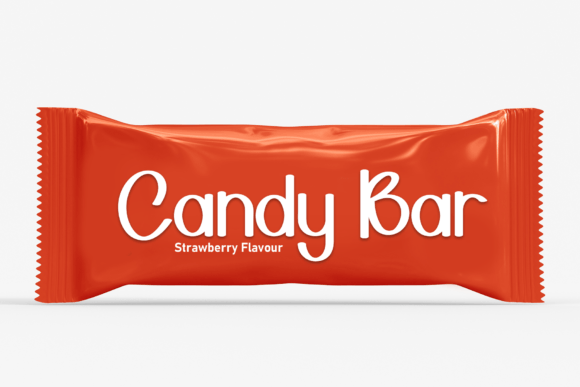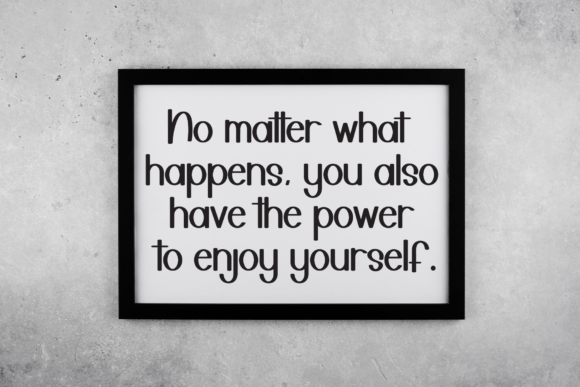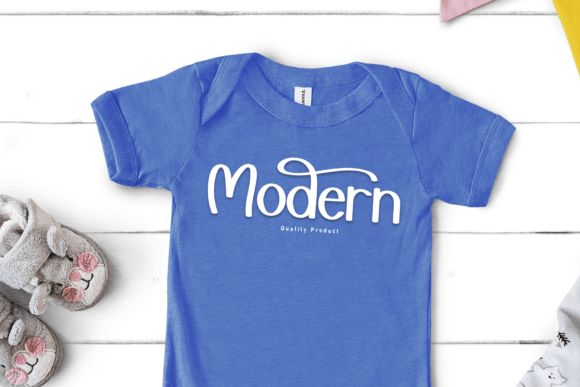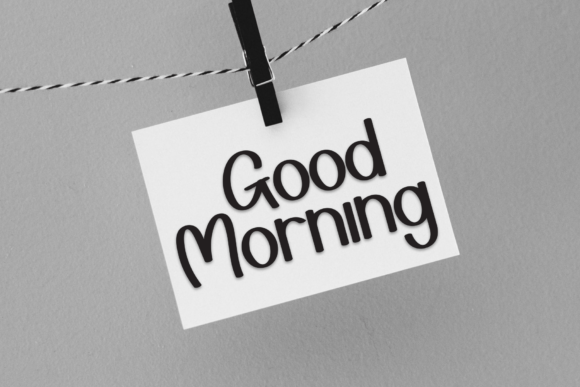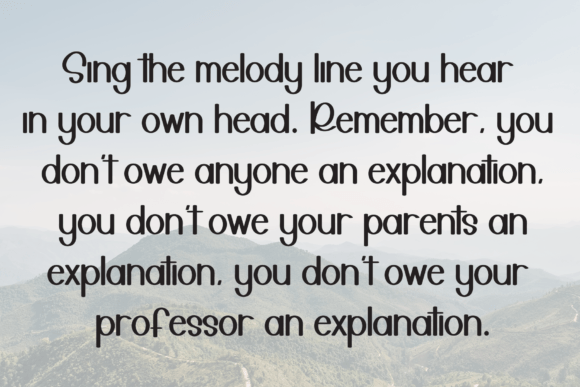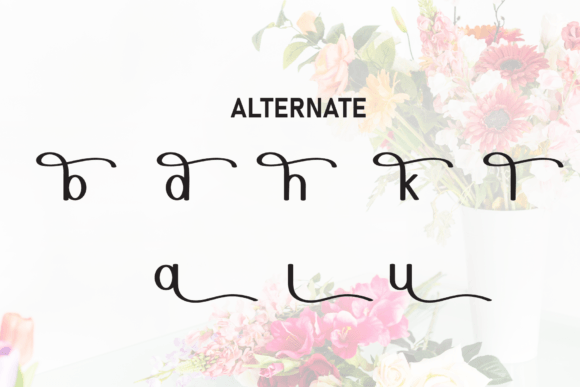
Introducing Bucket Font: The Sweetest Addition to Your Design Projects
Are you tired of using the same old fonts in your design projects? Do you want to add a touch of whimsy and fun to your creations? Look no further than Bucket Font, a charmingly sweet and friendly typeface that’s been personally handcrafted to bring visual joy to your designs. In this article, we’ll dive into the world of Bucket Font and explore its features, benefits, and uses.
A Playful and Inviting Typeface
Bucket Font is a handwritten display font that’s designed to exude a playful vibe. Its unique and irregular shape makes it perfect for adding a personal touch to your designs. Whether you’re creating wedding invitations, greeting cards, or social media graphics, Bucket Font is sure to make your text stand out. The font’s sweet and friendly demeanor makes it ideal for designs that require a touch of warmth and personality.
Features of Bucket Font
- Handcrafted with love: Bucket Font is a carefully crafted typeface that’s been designed with attention to detail. Each letter has been personally hand-drawn to ensure a unique and authentic look.
- Playful and whimsical: The font’s irregular shape and curved lines give it a playful and whimsical feel that’s perfect for designs that require a touch of fun.
- Highly legible: Despite its playful nature, Bucket Font is highly legible and easy to read, making it perfect for use in a variety of design projects.
- Multi-language support: Bucket Font supports multiple languages, making it a great choice for designers who work with international clients.
Uses of Bucket Font
Bucket Font is a versatile typeface that can be used in a variety of design projects. Here are some ideas to get you started:
- Wedding invitations: Add a touch of romance and whimsy to your wedding invitations with Bucket Font.
- Greeting cards: Create heartfelt and personalized greeting cards with Bucket Font.
- Social media graphics: Use Bucket Font to add a touch of fun and personality to your social media graphics.
- Branding and packaging: Use Bucket Font to create unique and eye-catching branding and packaging designs.
Benefits of Using Bucket Font
So why choose Bucket Font for your design projects? Here are just a few benefits:
- Unique and eye-catching: Bucket Font is a one-of-a-kind typeface that’s sure to make your designs stand out.
- Easy to use: Bucket Font is highly legible and easy to use, making it perfect for designers of all skill levels.
- Time-saving: With Bucket Font, you can create professional-looking designs in no time.
Tips for Using Bucket Font
Here are a few tips for using Bucket Font in your design projects:
- Use it sparingly: Bucket Font is a bold and eye-catching typeface, so use it sparingly to avoid overwhelming your design.
- Pair it with other fonts: Bucket Font pairs well with other fonts, so don’t be afraid to experiment with different combinations.
- Experiment with colors: Bucket Font looks great in a variety of colors, so experiment with different hues to find the perfect one for your design.
In conclusion, Bucket Font is a charmingly sweet and friendly typeface that’s perfect for adding a touch of whimsy and fun to your design projects. With its unique and irregular shape, highly legible design, and multi-language support, Bucket Font is a versatile typeface that can be used in a variety of design projects. Whether you’re creating wedding invitations, greeting cards, or social media graphics, Bucket Font is sure to make your text stand out. So why not give it a try and see the magic for yourself?